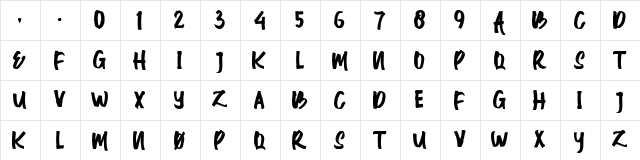
Allcaps Regular Free Font
Allcaps Regular
Foundry: Atjcloth
Designer: Atjcloth
Design Context for Allcaps
Allcaps is a composed and adaptable typeface that performs quietly and consistently across a wide range of design contexts.
Pro Tip: Use Allcaps in both headline and body roles to test its range before committing to a single application.